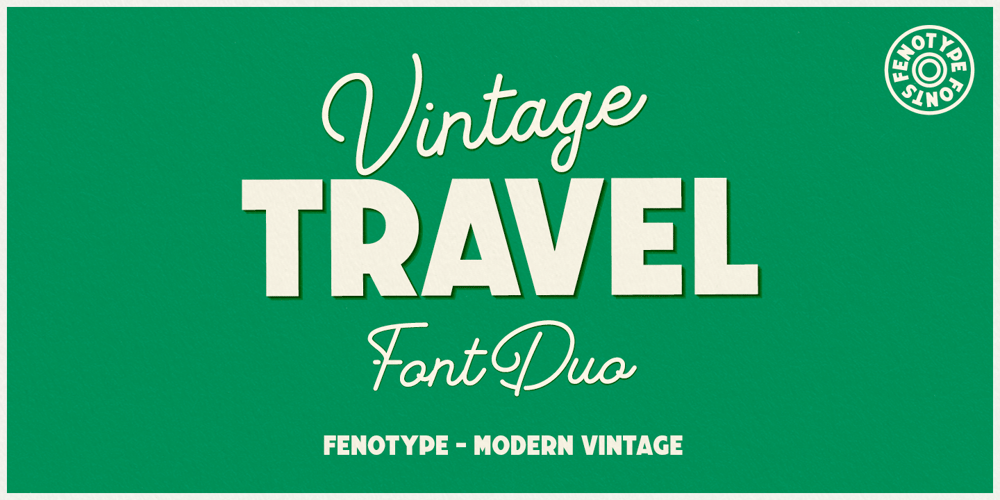
Vintage Travel Font Family was designed by Emil Karl Bertell and published by Fenotype. Vintage Travel contains 2 styles and family package options. Inspired and after 20th century’s travel posters, Vintage Travel is a font duo with a monoline Script that has small x-height and a bulky vernacular Sans designed to play together. Script is equipped with several OpenType features such as Swash and Titling alternates as well as Small Caps for small capital letters. Sans comes with Stylistic Alternates that provides you with a selection of lowered accented characters that can be used to create more uniform text blocks and tighter leading.